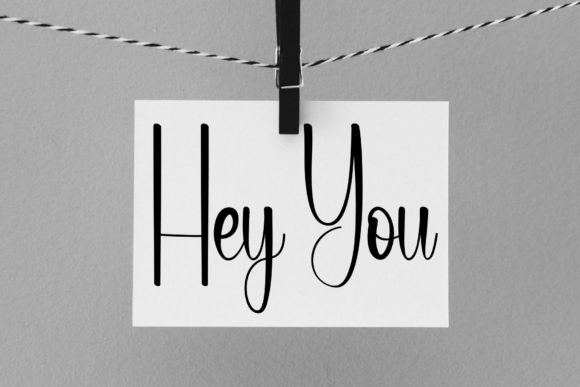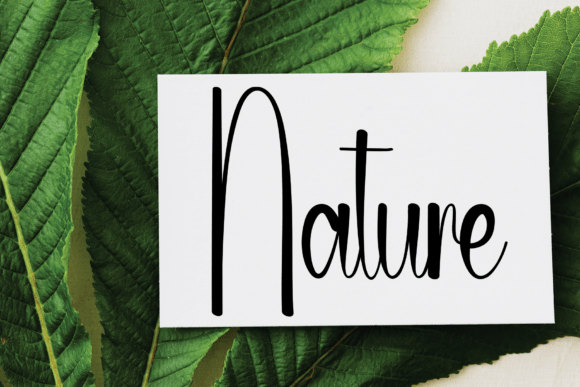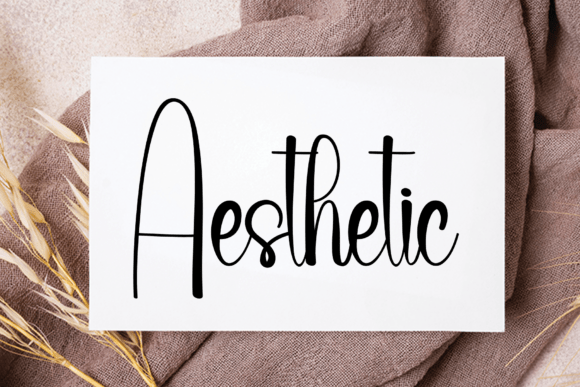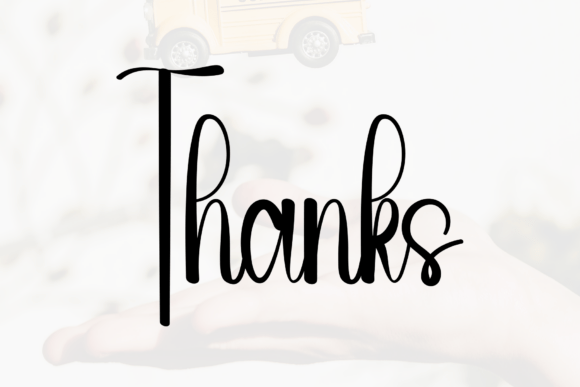
When a Design Moment Just Feels Right
Have you ever been working on a design project, and suddenly, everything falls into place? The colors, the typography, the overall vibe – it’s like magic. That’s exactly what happened when I first laid eyes on the Bubble Gum Font. Its charming handwritten style had me hooked from the start, and I couldn’t wait to see how it would bring my designs to life.
| 👤 Author | KC Production |
As it turns out, the Bubble Gum Font is more than just a pretty face. Its smooth strokes and organic lines create a relaxed atmosphere that’s perfect for a variety of design projects. Whether you’re working on branding, invitations, or social media graphics, this font is sure to add a touch of warmth and personality to your designs.
Bubble Gum Font Key Features
- Font Family: Bubble Gum Font is a unique, handwritten font that features a fun, playful style.
- Character Set: Includes a wide range of characters, including uppercase and lowercase letters, numbers, and punctuation marks.
- Unique Characteristics: Features a distinctive, bubbly texture and a fun, handwritten feel that adds a touch of whimsy to any design.
Bubble Gum Font Review
At first glance, the Bubble Gum Font seems like a fun and playful addition to any design project. ✨ The rounded edges and bubbly texture give it a youthful and energetic feel that’s perfect for creating a lighthearted atmosphere.
Here are some things that work well with the Bubble Gum Font:
- ✨ Versatility: It can be used for a variety of projects, from children’s products to social media graphics.
- ✨ Readability: Despite its playful appearance, the font is still easy to read, making it suitable for longer blocks of text.
- ✨ Customization: The font can be easily customized to fit your brand’s color scheme and style.
- ⚠️ Limited sophistication: The font may not be suitable for more formal or professional projects.
- ⚠️ Distraction: The bubbly texture can be distracting if used in large quantities or for extended periods of time.
- ⚠️ Limited compatibility: Some users may experience issues with font rendering or compatibility on certain devices or browsers.
Overall, the Bubble Gum Font is a fun and versatile addition to any design project. While it may not be suitable for every occasion, it’s a great choice for projects that require a lighthearted and playful touch.
Use the Bubble Gum font for playful and fun designs, such as social media graphics, birthday invitations, and children’s party materials.
Experiment with different font sizes and styles to create a unique look.
Combine the Bubble Gum font with other playful fonts for a more creative and eye-catching design.